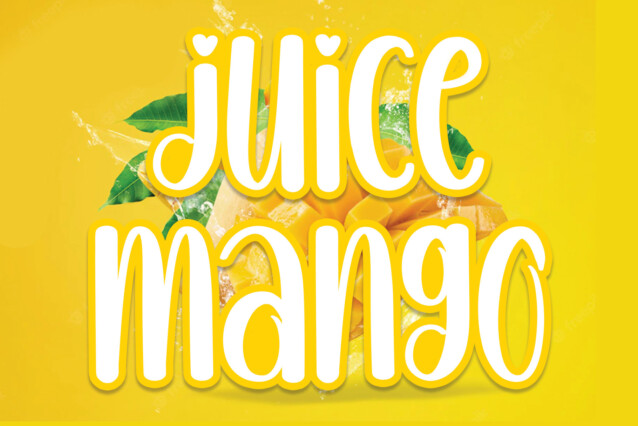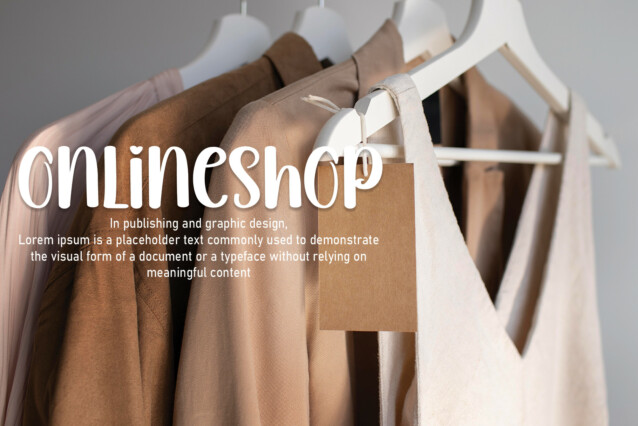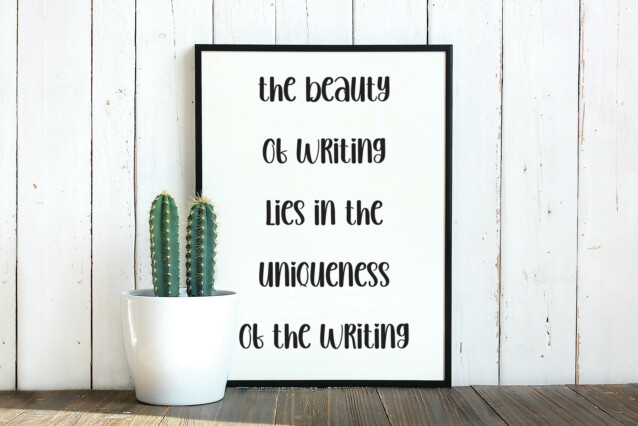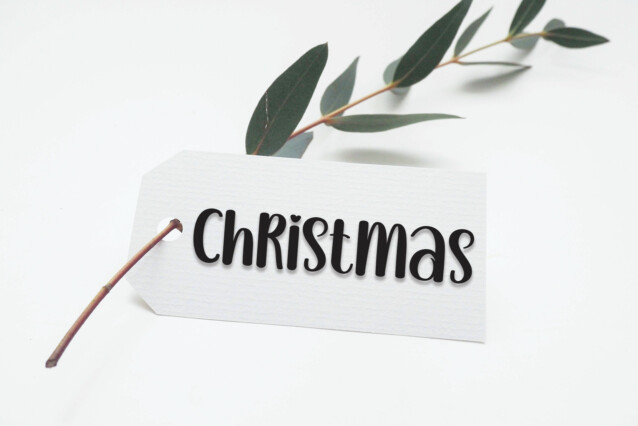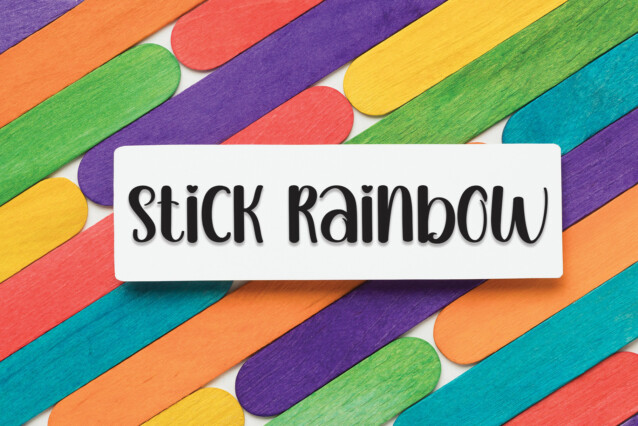
Juice Mango Display Font
Juice Mango Display Font is a cool and relaxed handwritten font. This versatile font has a wide spectrum of applications ranging from greeting cards to headlines and is guaranteed to add a neat and natural feel to your next project!